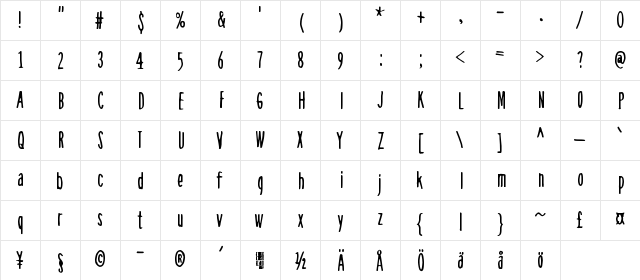
As soon as possible Regular
| Designer | junkohanhero |
Design Context for As soon as possible Typeface
As soon as possible takes a measured approach to typography — its balanced proportions and neutral character make it a reliable workhorse for both digital and print work.
Pro Tip: Use As soon as possible in both headline and body roles to test its range before committing to a single application.